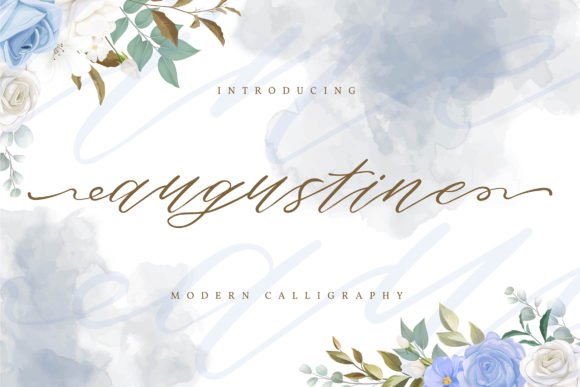
The Perfect Font for the Romantic at Heart
Have you ever stumbled upon a font that makes you swoon? For us, that moment was when we laid eyes on the exquisite Augustine Font. It’s as if the delicate curves and elegant flair of this handwritten font whispered sweet nothings to our design souls, begging us to create something truly special.
The Augustine Font is a masterpiece designed for those who crave a touch of romance and sophistication in their designs. Whether you’re crafting wedding invitations, designing beautiful stationery, or simply want to elevate your social media posts, this font is the perfect companion. With its PUA encoding, you’ll have access to all the glyphs and swashes you need to bring your creative vision to life.
As designers, we know that the right font can make all the difference in our projects. And the Augustine Font is a valuable addition to any design arsenal, offering a level of elegance and refinement that’s hard to find in other fonts. So, fall in love with the Augustine Font and let its beauty inspire your next creative project.
Augustine Font Key Features
- Unique Characteristics: This font features elegant, handwritten script with subtle flourishes, making it perfect for creative and artistic projects.
- Font Weight: The font has a medium weight, making it suitable for body text, headings, and titles.
Augustine Font Review
I recently had the chance to work with the Augustine font, and I must say it’s a unique and interesting addition to any design project. Here’s what I think works well: ✨
- Its elegant and refined aesthetic makes it perfect for luxury brands or high-end publications.
- The font’s x-height is well-balanced, making it easy to read in both print and digital formats.
- The font’s versatility allows it to be used in a wide range of contexts, from body text to headings.
- The font may be too ornate for some projects, which could make it difficult to read in certain situations.
- The font’s complexity may make it challenging to pair with other fonts, which could limit its versatility.
Overall, I think the Augustine font is a solid choice for designers looking to add some sophistication and elegance to their projects. However, it may not be the best fit for every project, and designers should carefully consider its limitations before making a decision.
Practical Application Guide: Augustine Font
Some common use cases for the Augustine Font include:
- Body text for formal documents
- Signage and display graphics
For optimal results, use the Augustine Font in conjunction with other design elements and keep the color palette simple and elegant.
Alternatives to Augustine Font
Playfair Display is an elegant, high-end serif font ideal for titles and headings. It features intricate details and luxurious feel, making it perfect for luxury brands, magazines, and high-end marketing materials. Compared to Augustine Font, Playfair Display has a more luxurious and sophisticated feel, but may be less readable in smaller sizes.
Montserrat is a modern sans-serif font designed for digital use. It’s clean, geometric design makes it perfect for body text, titles, and even logos. Montserrat is more versatile than Augustine Font, suitable for a wide range of designs, from modern websites to print materials. However, it may lack the sophistication and elegance of Augustine Font.
What is the recommended font size for the Augustine Font?
The recommended font size for the Augustine Font is between 12pt and 18pt. However, the optimal font size will depend on the specific design application and the desired level of readability. Experiment with different font sizes to find the best fit for your project.